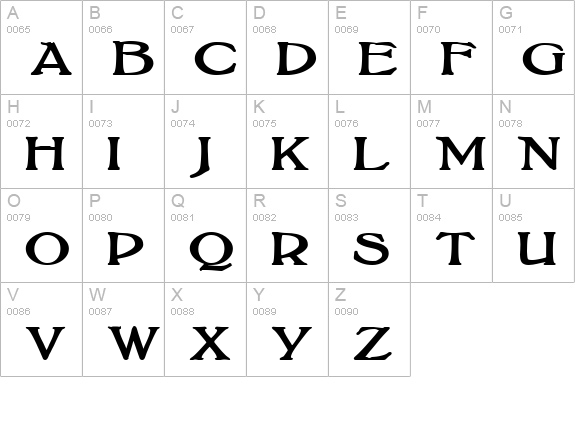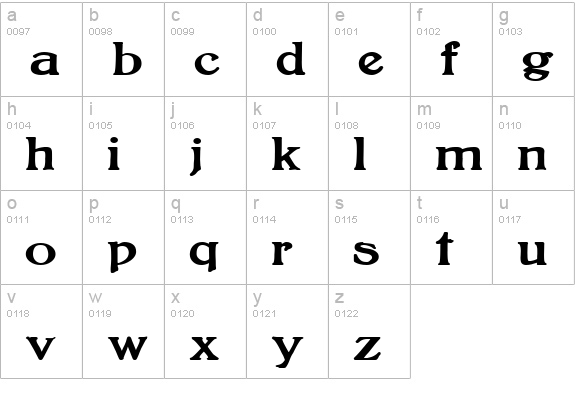
BoltonBold Font Details
BoltonBold is a striking and versatile font that exudes power and elegance. With its bold and commanding presence, this font is ideal for making a strong statement in headlines, logos, and branding materials. The thick lines and sharp angles of BoltonBold give it a modern and sophisticated look that is sure to capture attention. The best part? BoltonBold is available for free download at FontsMarket.com. That's right, you can get your hands on this impactful font without spending a dime. Whether you're a designer looking to add a bold touch to your projects or a business owner wanting to make a lasting impression, BoltonBold is the perfect font for you. Download it now and take your designs to the next level with this stylish and impactful typeface.